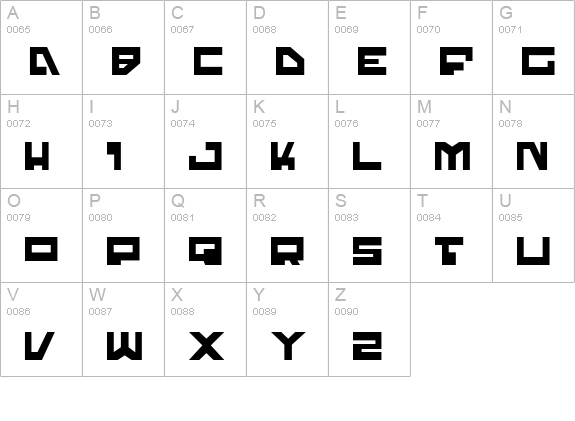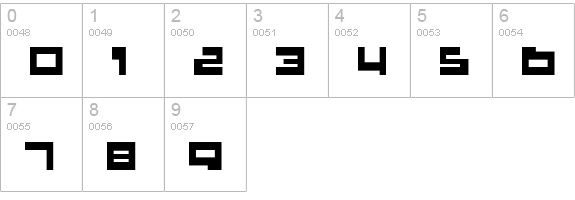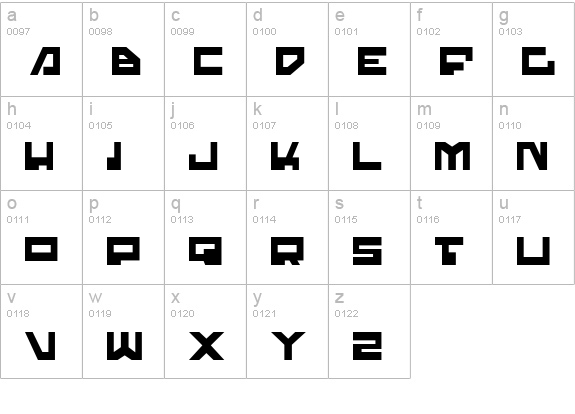
The Trajia font is a modern and stylish typeface that exudes elegance and sophistication. With its sleek lines and contemporary look, Trajia is perfect for a wide range of design projects, from branding to editorial design. This versatile font is sure to make a lasting impression and elevate your designs to the next level. And the best part? Trajia is available for free download at FontsMarket.com. You can easily access this stunning font and use it in your projects without any cost. Don't miss out on the opportunity to add Trajia to your font collection and bring a touch of class to your designs. Download Trajia today and elevate your creative work with this beautiful typeface.